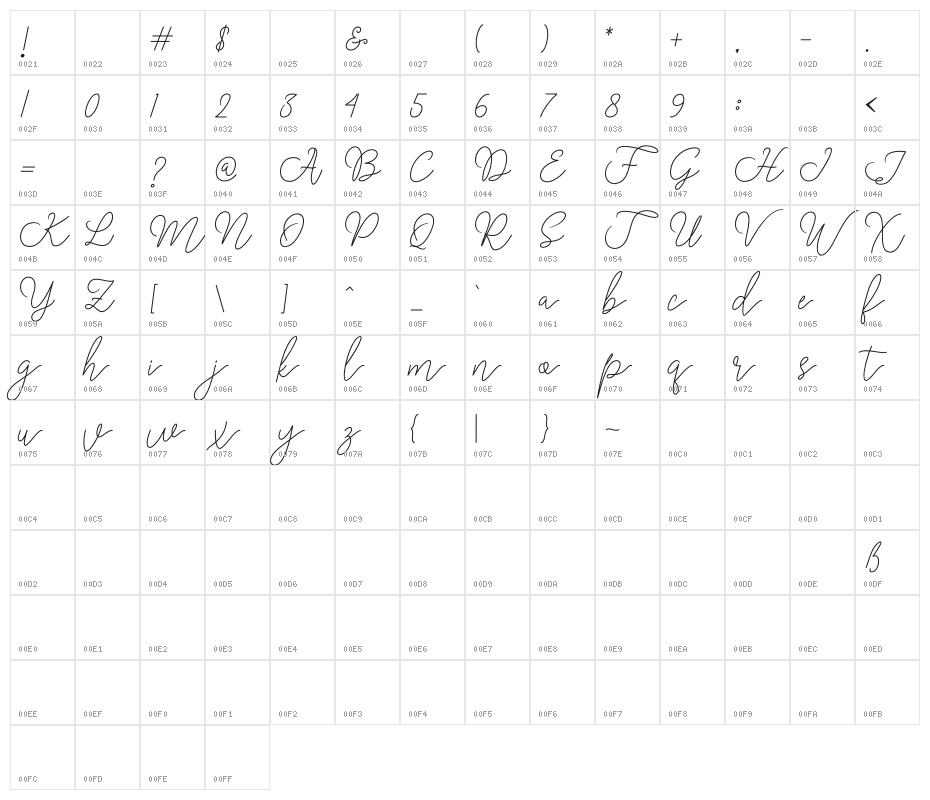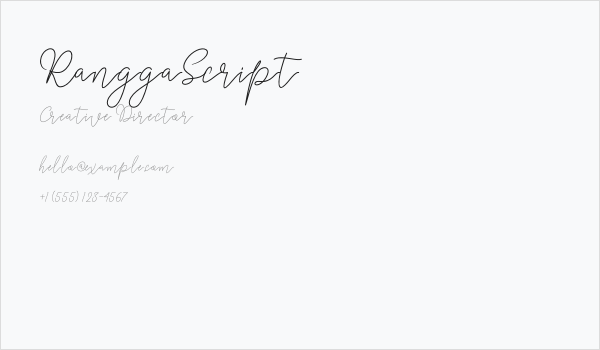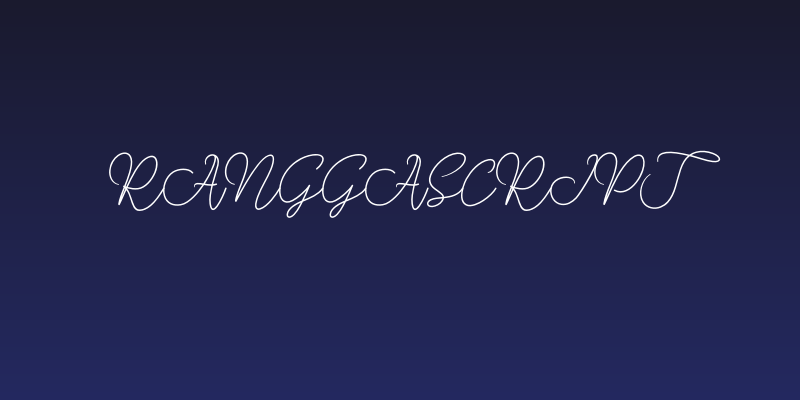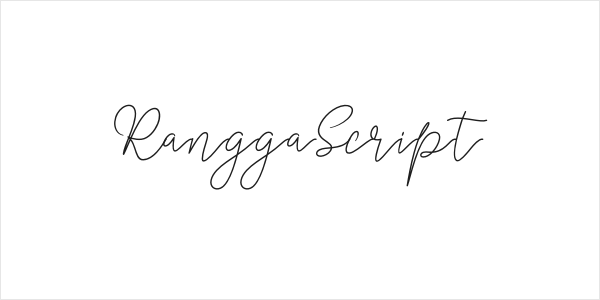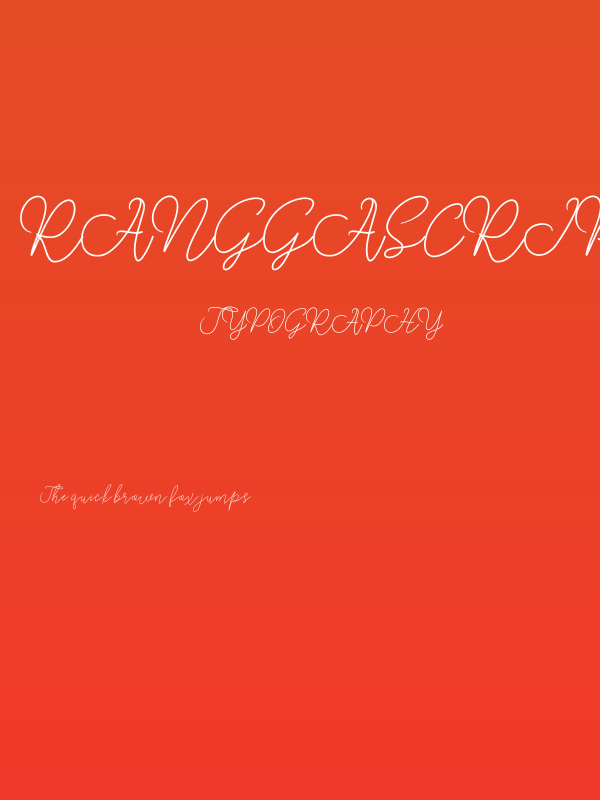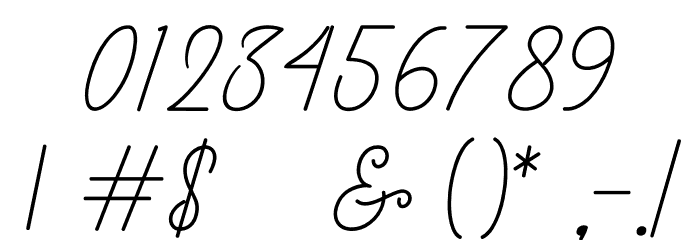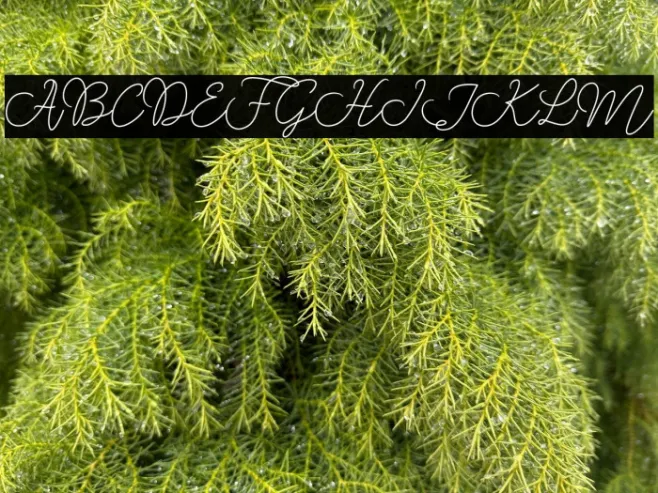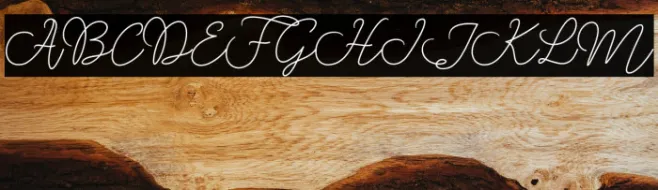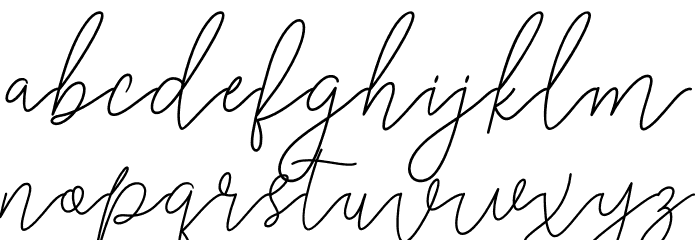
RanggaScript Font
RanggaScript Description
This elegant script font features a flowing, cursive style with a modern twist. The letters are interconnected with smooth, sweeping lines, giving it a graceful and fluid appearance. The uppercase letters are slightly more ornate, while the lowercase letters maintain a consistent rhythm and balance. The numerals are clear and easy to read, complementing the overall aesthetic. Special characters are designed with the same attention to detail, ensuring a cohesive look across all glyphs. This font is perfect for adding a touch of sophistication and elegance to any design project.
| Overall Style | Elegant, Modern |
| Proposed Projects | Ideal for wedding invitations, greeting cards, branding, and elegant packaging. |